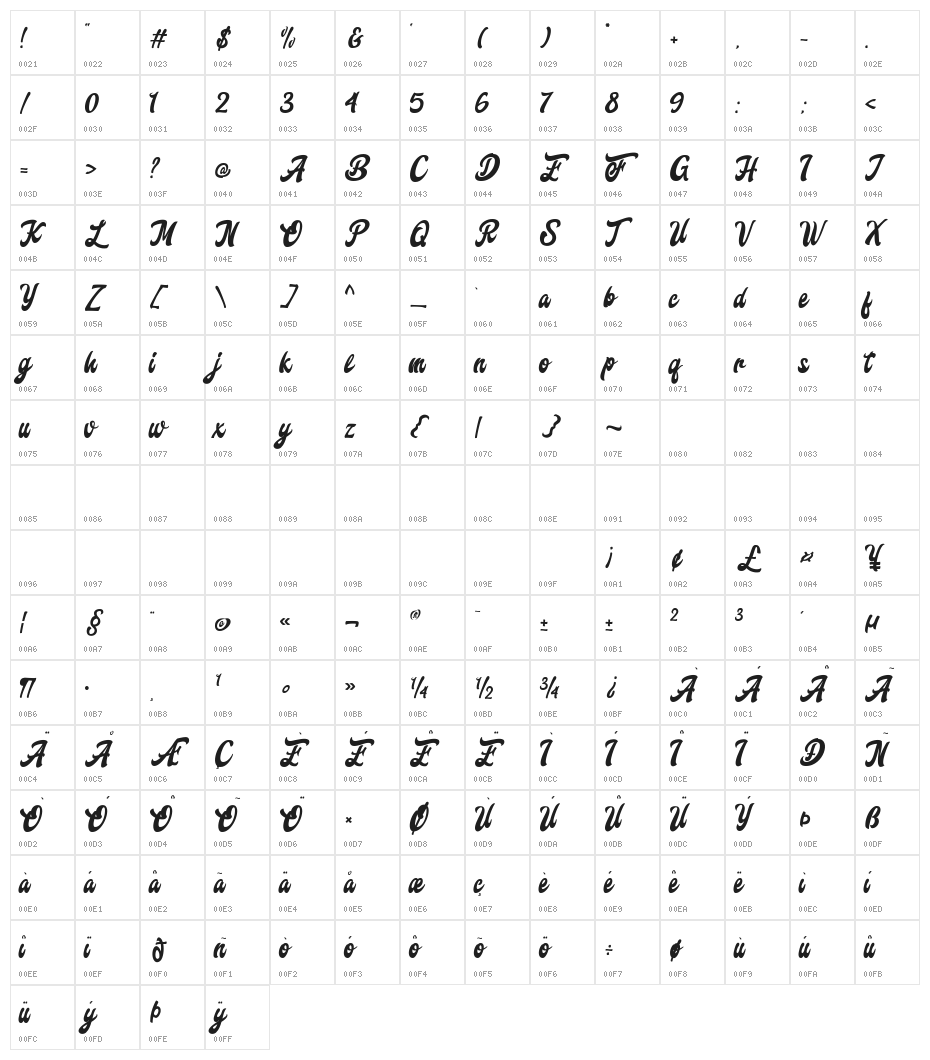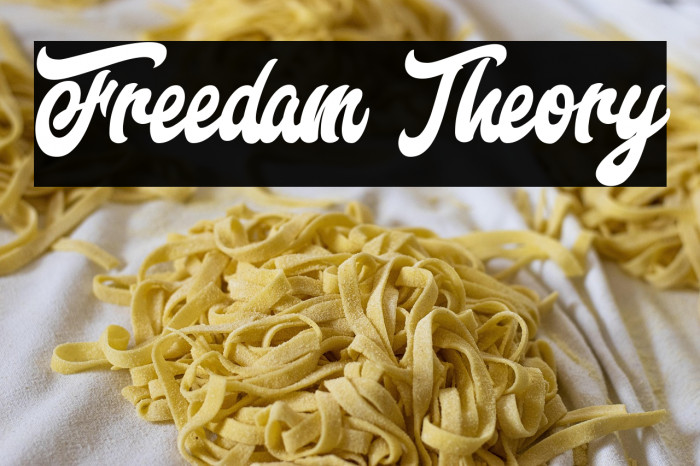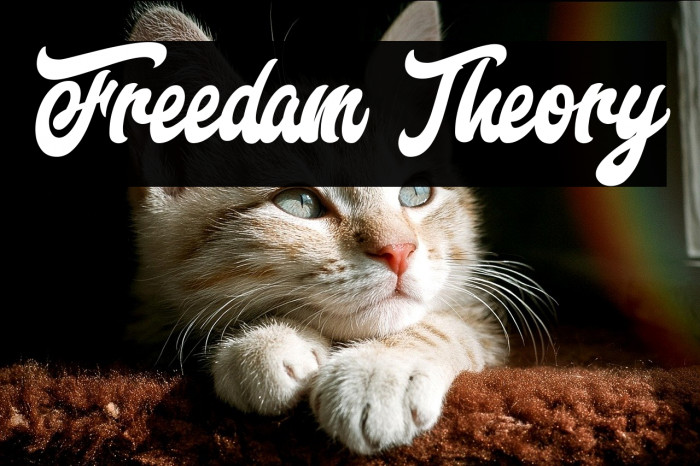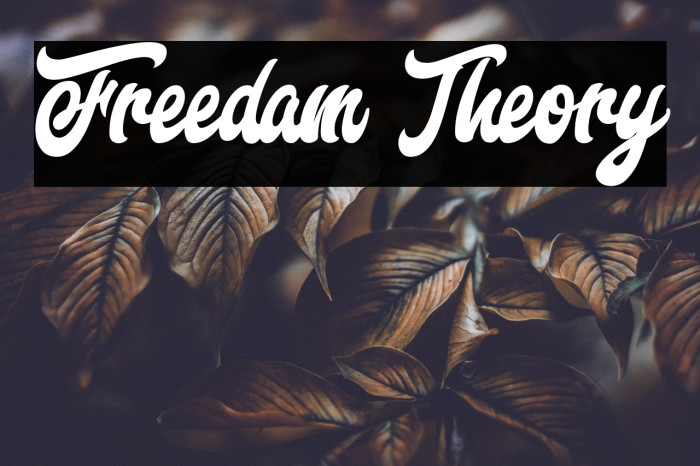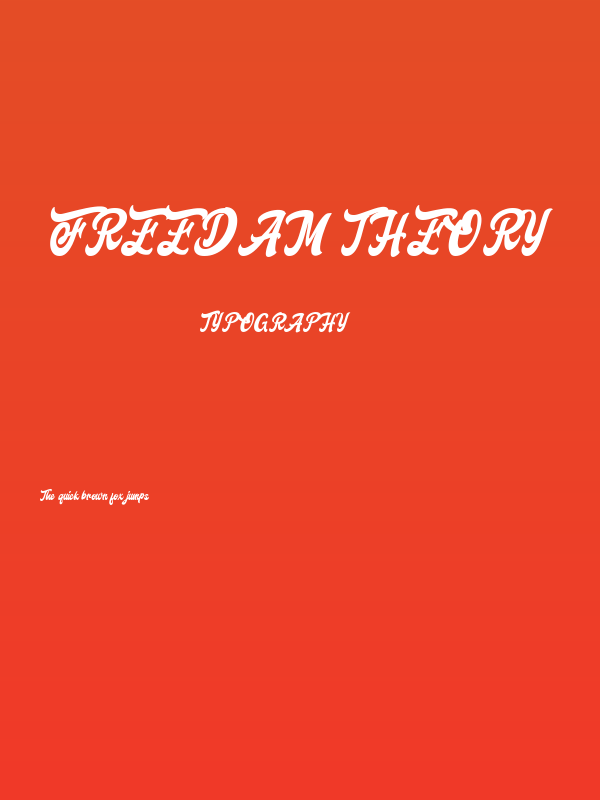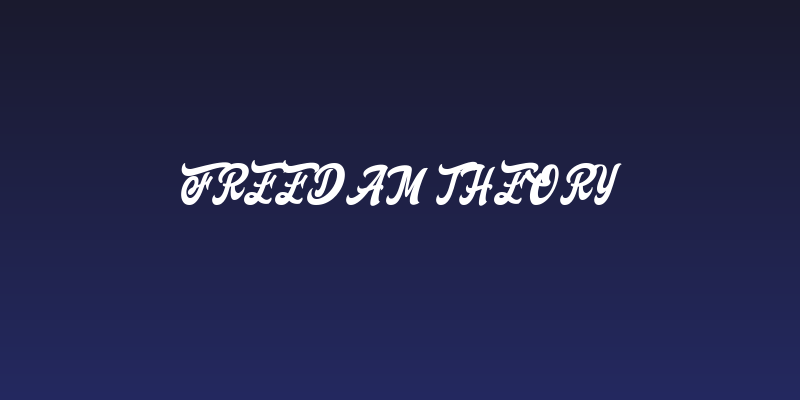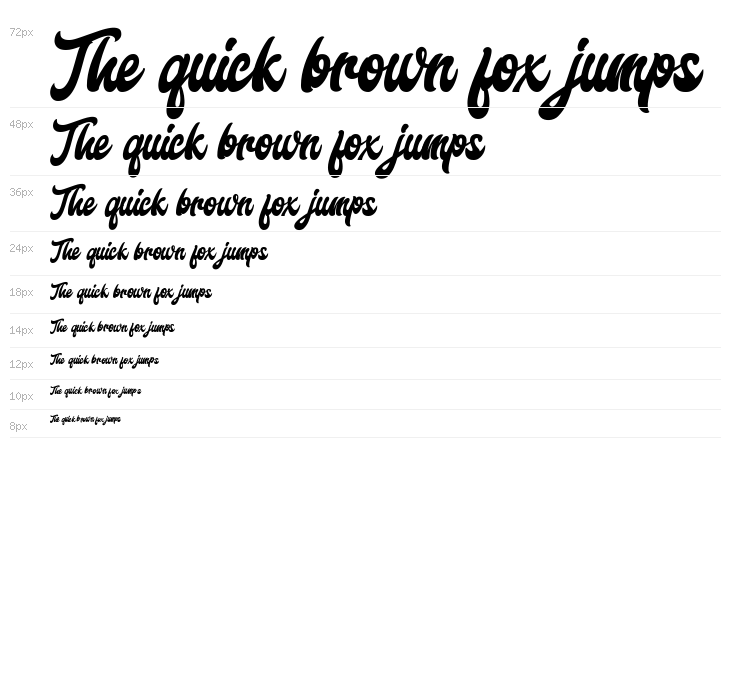
Freedam Theory Font
Freedam Theory Description
This font features a bold, cursive style with a flowing script that exudes elegance and sophistication. The uppercase letters are characterized by sweeping curves and flourishes, while the lowercase letters maintain a consistent, connected flow. The numbers and special characters are designed to complement the letters, maintaining the same fluidity and boldness. The overall appearance is dynamic and expressive, making it suitable for creative and artistic projects. The font's bold strokes and high contrast between thick and thin lines add to its dramatic and eye-catching appeal.
| Use Case | Logos, Invitations, Decorative Text |
| Proposed Projects | Ideal for wedding invitations, greeting cards, logos, and branding materials that require a touch of elegance and flair. |